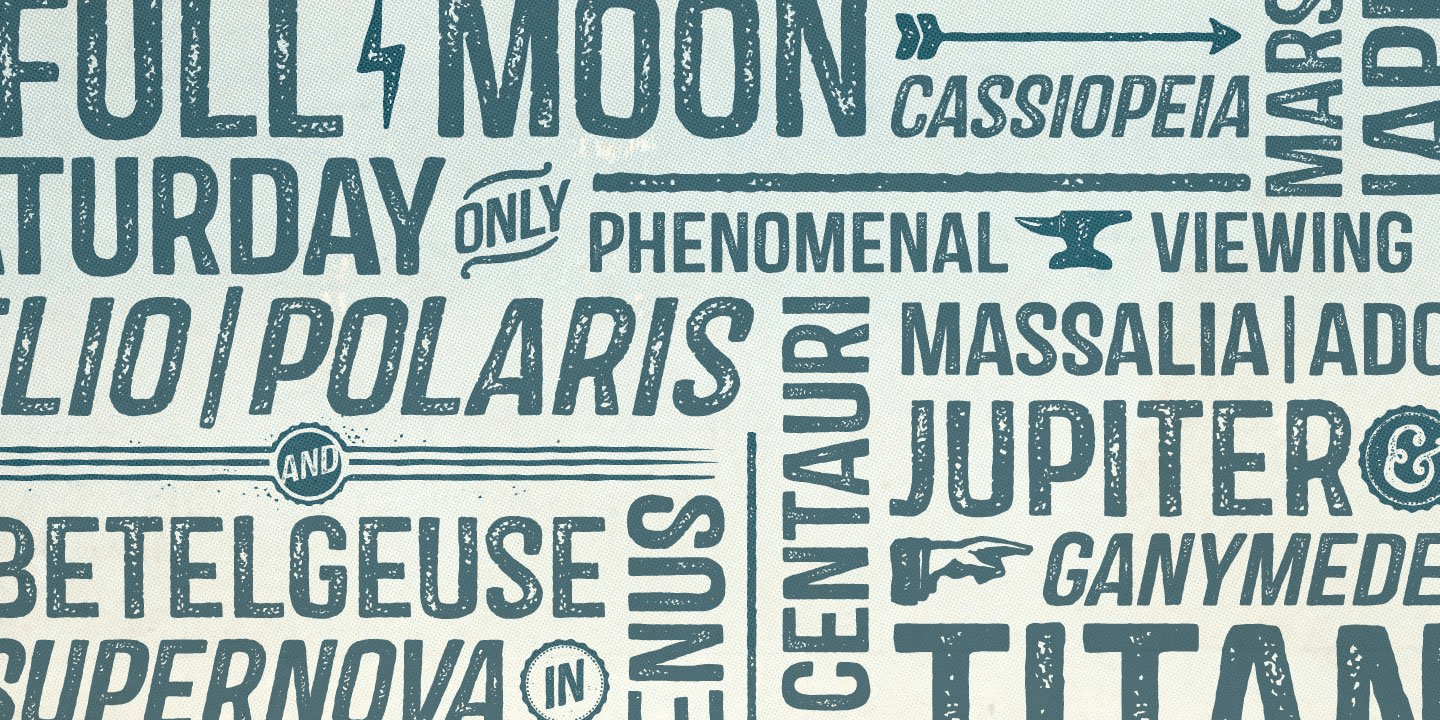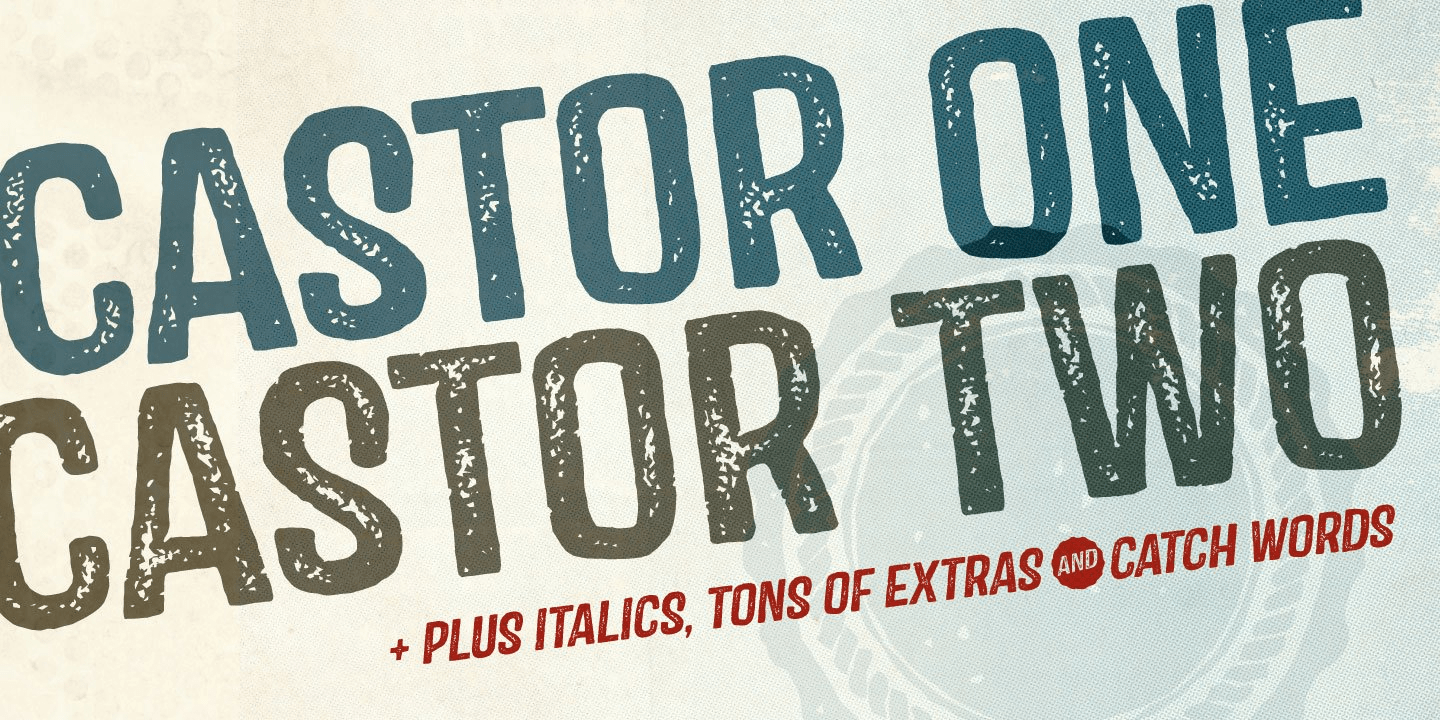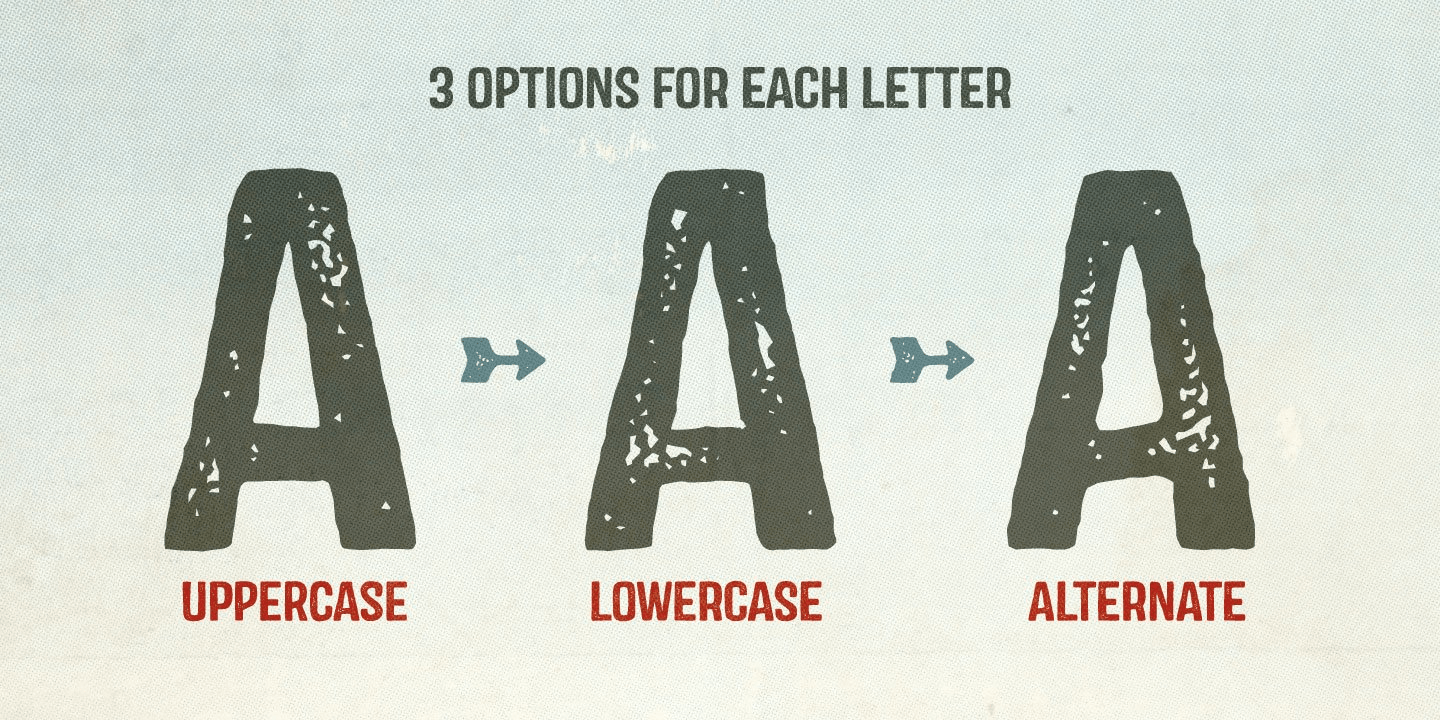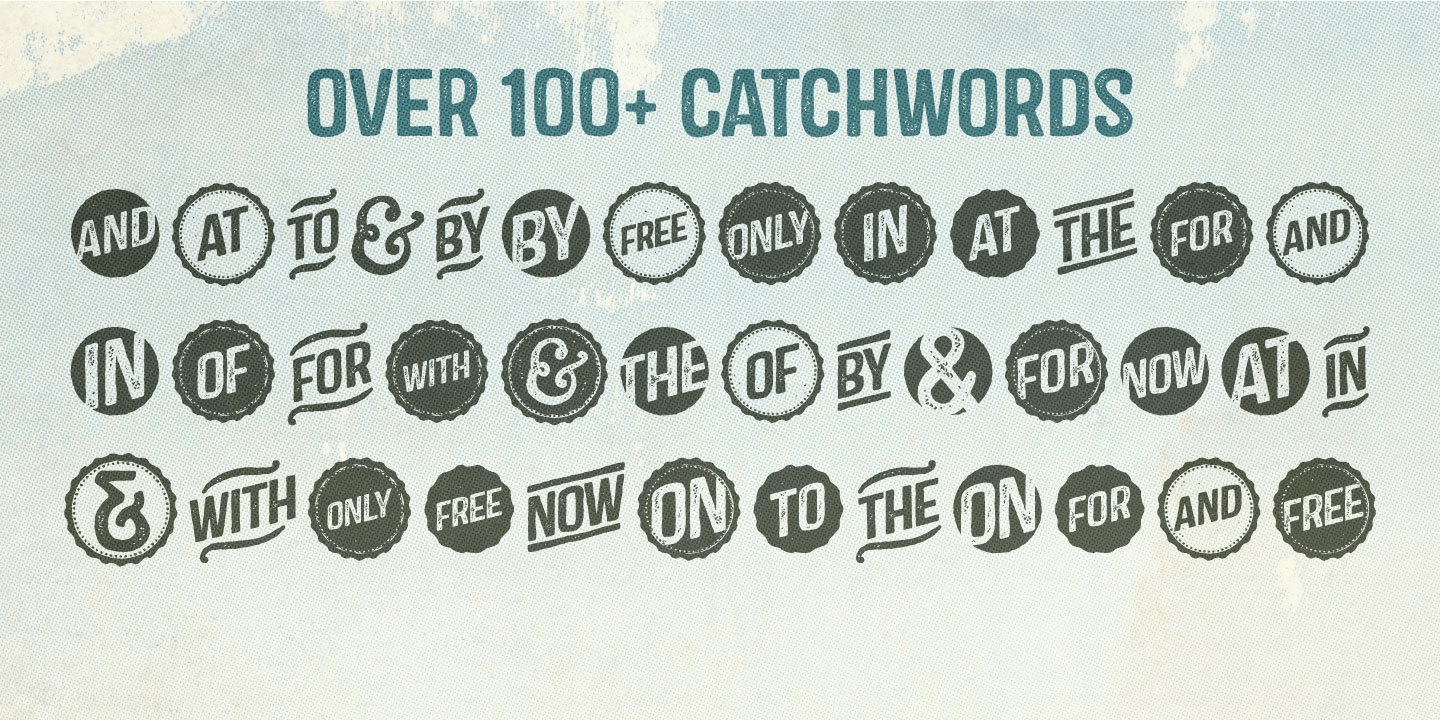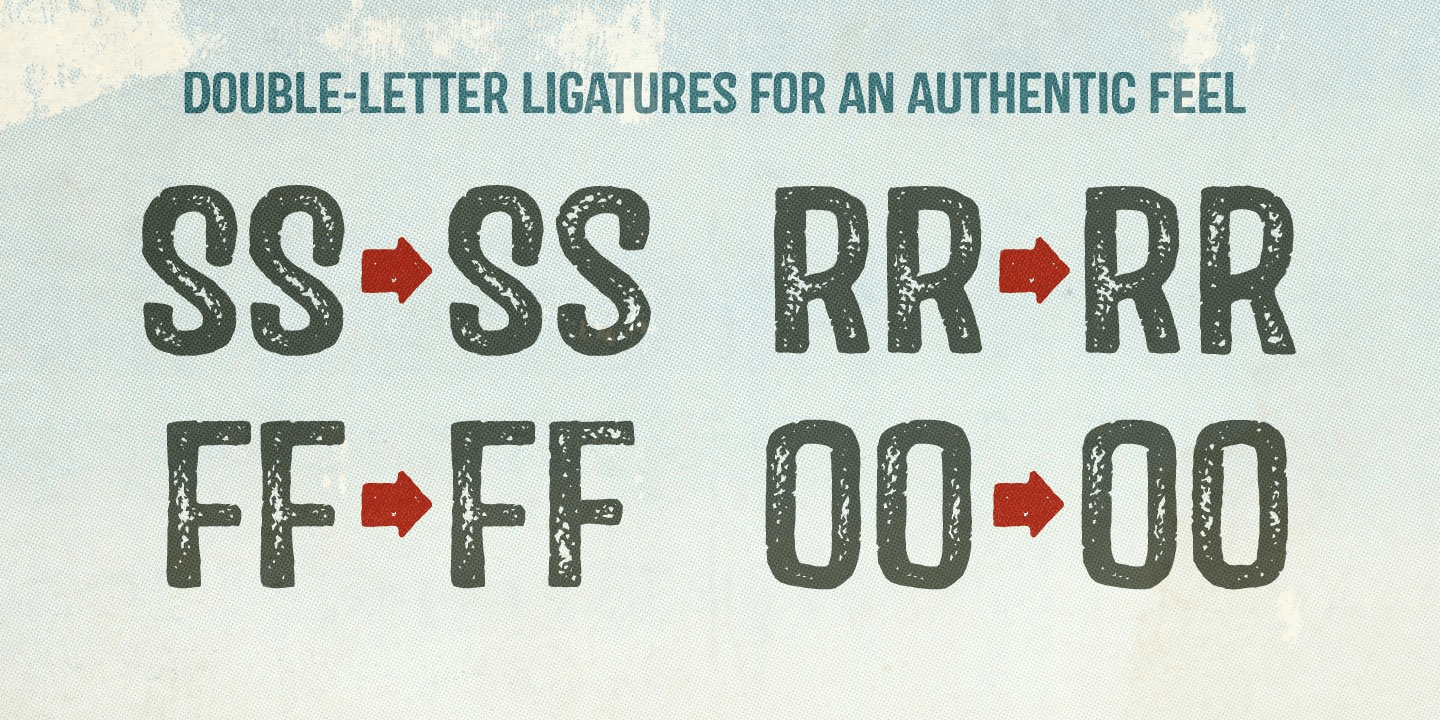
About Castor
Castor is a woodtype and letterpress hybrid based on grotesque letterforms. It\’s a vintage decorative bold distressed display with 3 options for each letter; Uppercase, lowercase, and alternates. Castor comes come complete with 4 styles plus catchwords,…